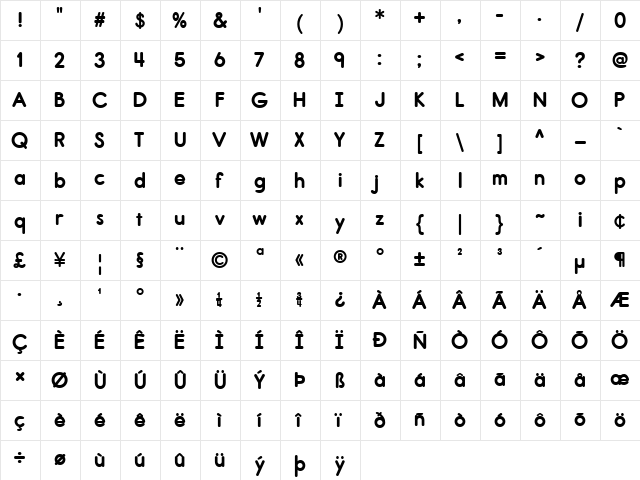
Report Bold
Design Context for Report Typeface
Report is a composed and adaptable typeface that performs quietly and consistently across a wide range of design contexts. The heavy weight commands attention and anchors typographic hierarchies.
Pro Tip: Pair Report with a font of contrasting weight or personality to build a more expressive typographic hierarchy.